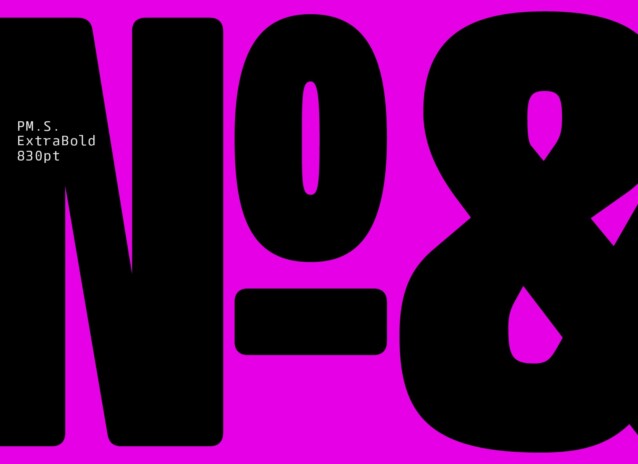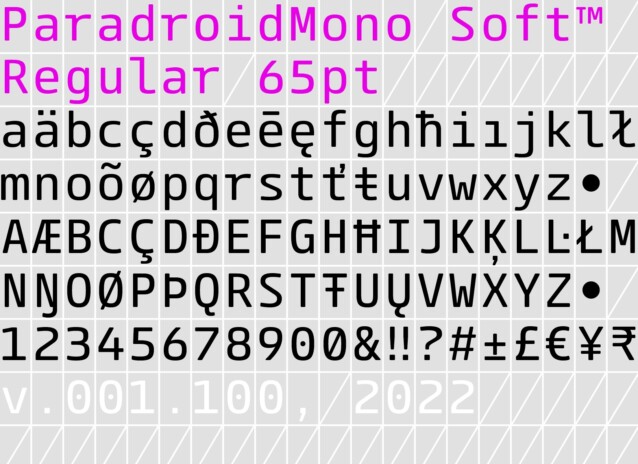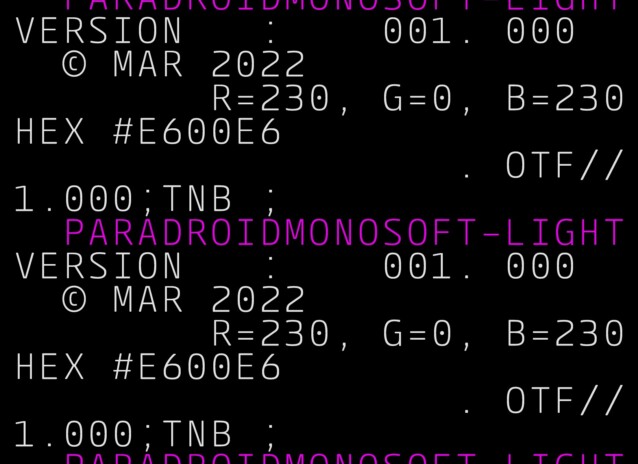
ParadroidMono Soft Font is a vintage-style stamp font family. It’s a subtle rounded version of the original pragmatic monospaced font that sits in the centre of the grotesque to geometric style spectrum. Equal measures of both letterforms create a neutral type family that is modern, functional, and easy to read without being too distractive.
Details include four monospaced weights with italics and over 450 characters per style. OpenType features include digital numerals, numerators, denominators, stylistic zeros, fractions and language support covering Western, Southern and Central Europe.